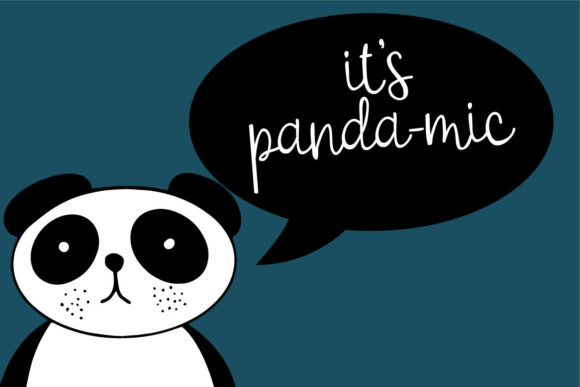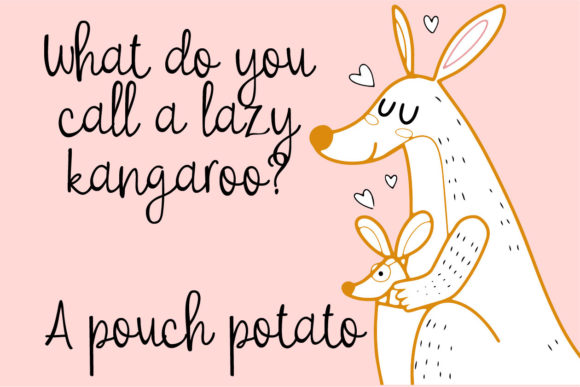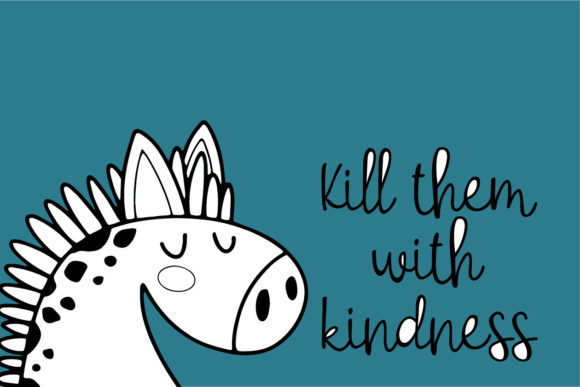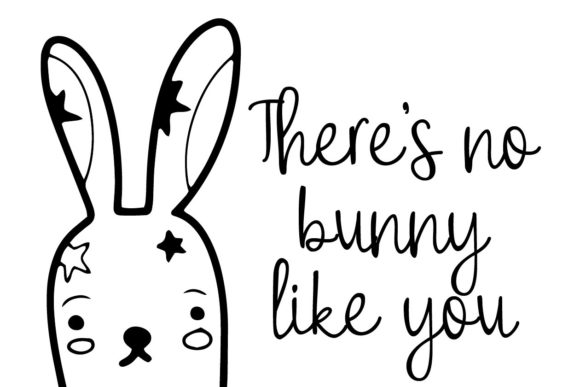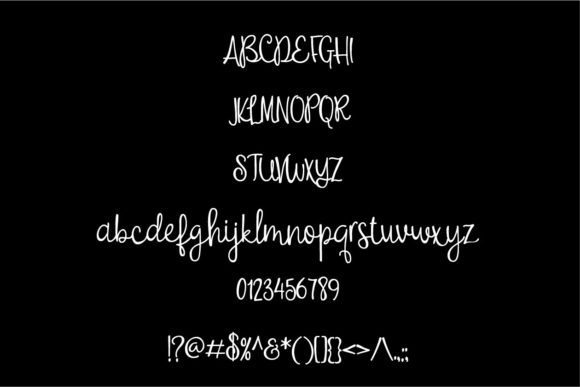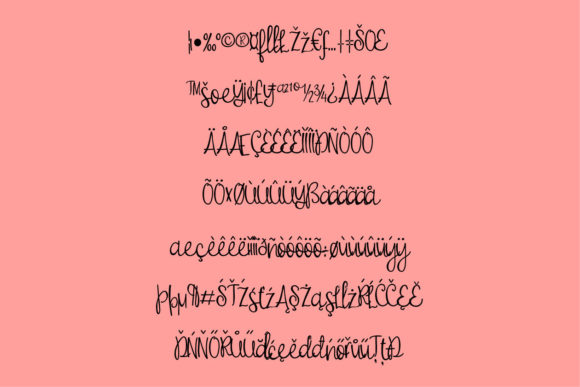
The Designer’s Delight: A Deep Dive into Giraffable Font
I’ll never forget the time I was working on a branding project for a trendy new cafe, and I just couldn’t find the perfect font to capture their quirky vibe. The client wanted something that would stand out on their menu and merchandise, but still feel elegant and sophisticated. That’s when I stumbled upon Giraffable Font, and let me tell you, it was love at first sight! 💕
Giraffable is a lovely and timeless handwritten font that has become a staple in my design toolkit. It’s the perfect choice for creating eye-catching logos, branding, and quotes that need a personal touch. Every letter has a unique and beautiful touch, which will make your design come alive!
So, what makes Giraffable Font so special? Here are a few things I love:
- ✨ Unique and beautiful letterforms that add a touch of personality to any design
- 💫 Supports OpenType features, glyphs, and stylistic alternates for added versatility
Of course, no font is perfect, and Giraffable has a few small quirks:
- 🤔 Some users may find the font a bit too ornate for very formal or traditional designs
- ⚠️ Limited availability of certain characters, such as ligatures or diacritical marks
The Story Behind Giraffable
Giraffable Font was designed with one goal in mind: to create a beautiful, timeless handwritten font that would add a touch of personality to any design. The designer, [Designer Name], drew inspiration from classic script fonts and modern calligraphy to create a truly unique and versatile font.
| Is Giraffable suitable for body text? | While Giraffable is a beautiful font, it’s best suited for headlines and titles rather than body text. It’s a bit too ornate for long blocks of text, but perfect for adding a touch of personality to your design. |